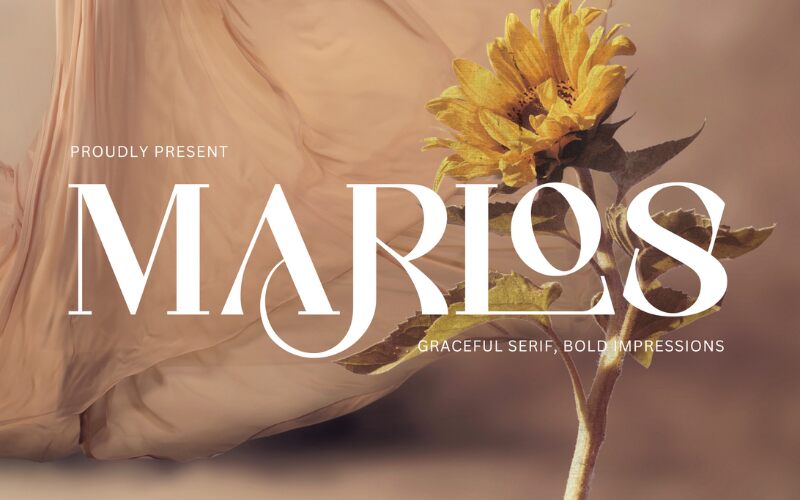
Marlos
Marlos font by Sronstudio is a free serif font which combines elegance, sophistication, and classic influence into one. Ideal for formal projects seeking aesthetic visuals, this balanced typeface features refined characters that grab attention instantly. Well-organized with a clean and smooth design, the font allows users to easily gain audiences’ trust.
Make use of Marlos on websites, apps interfaces, logos & typography in general. Extend the line of areas where it can be used with digital & print ads, banners & social media posts designs. For educational uses on online lessons platforms for instance or entertainment purposes in TV and radio shows branding/advertising.